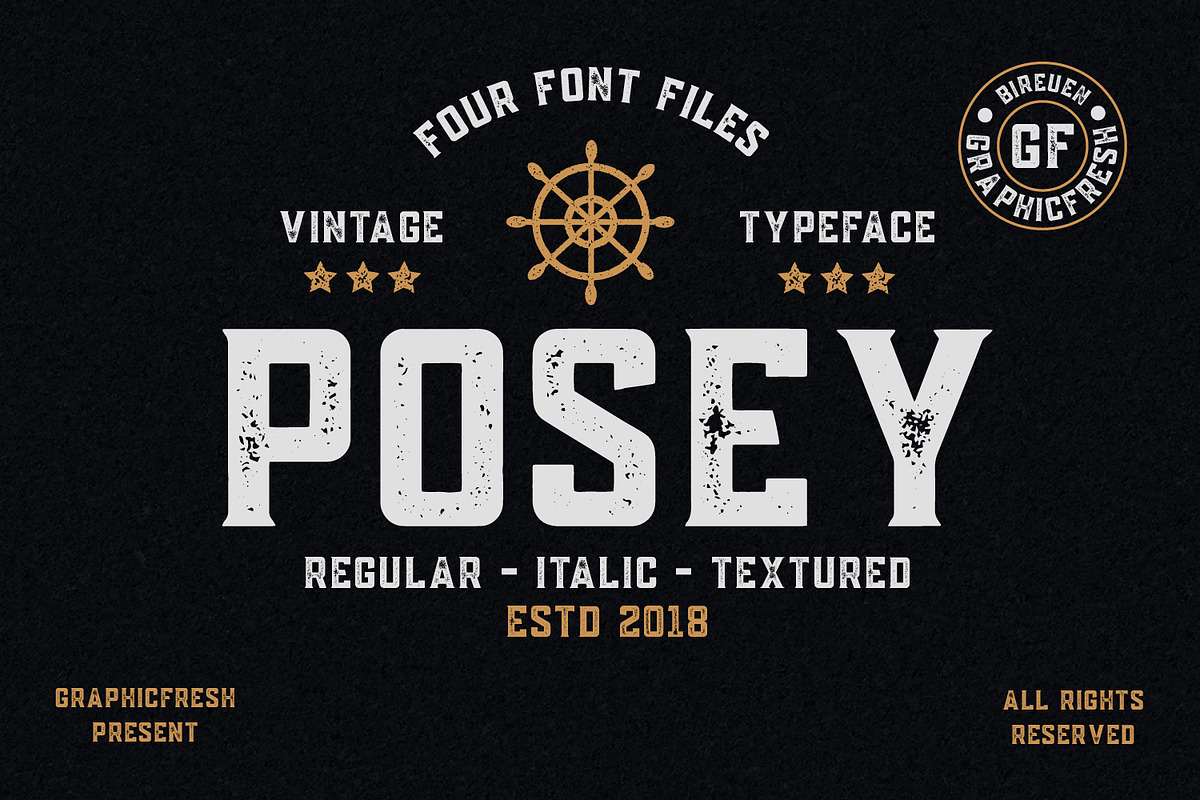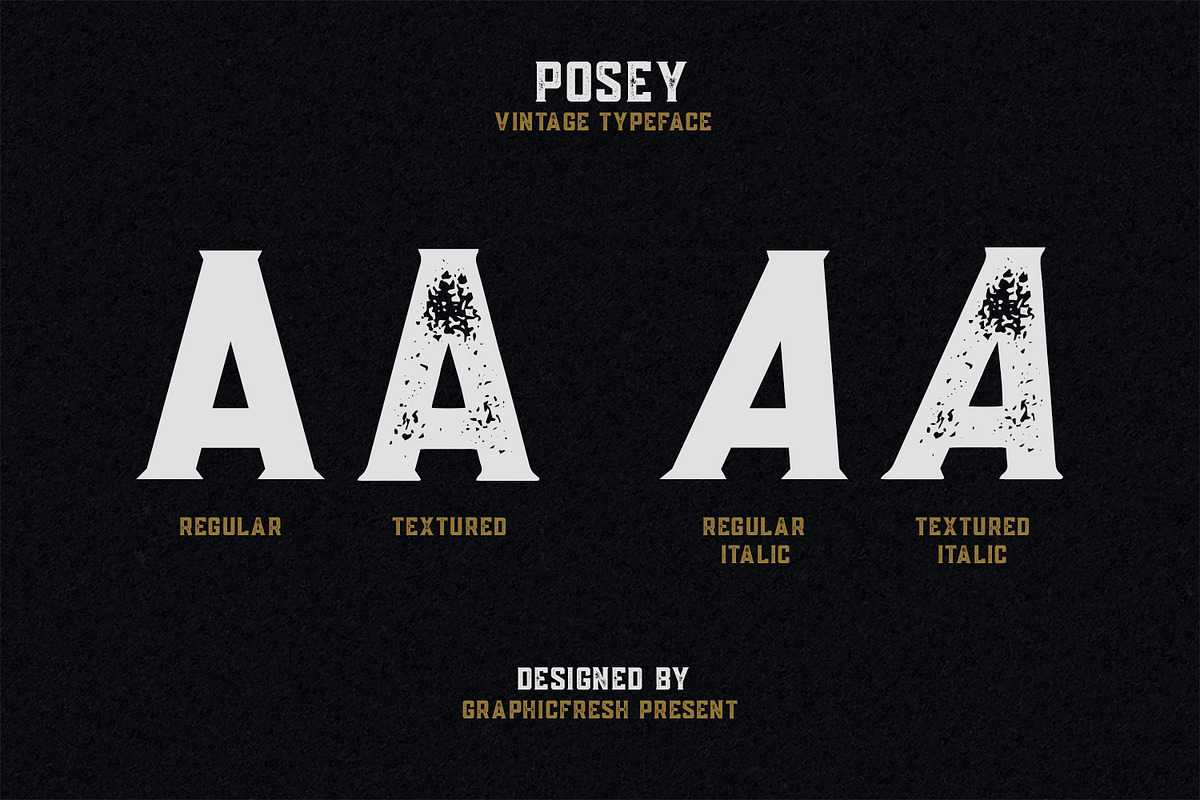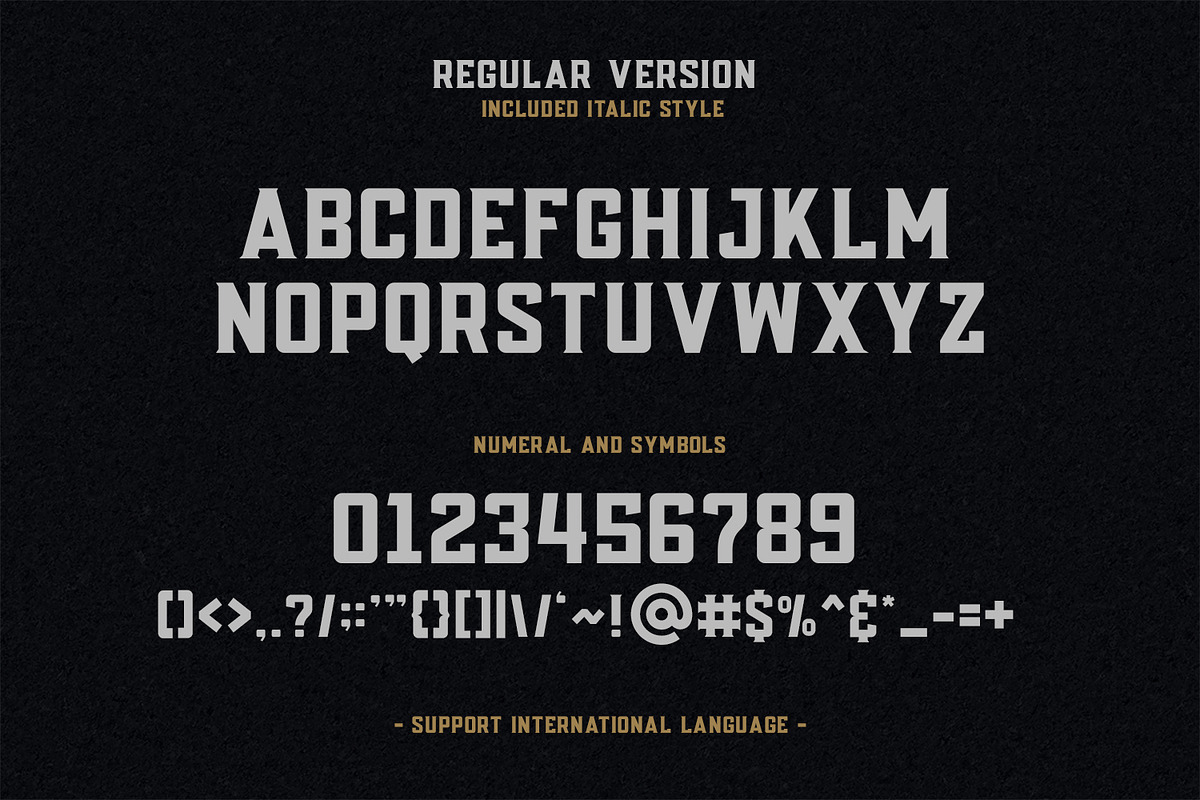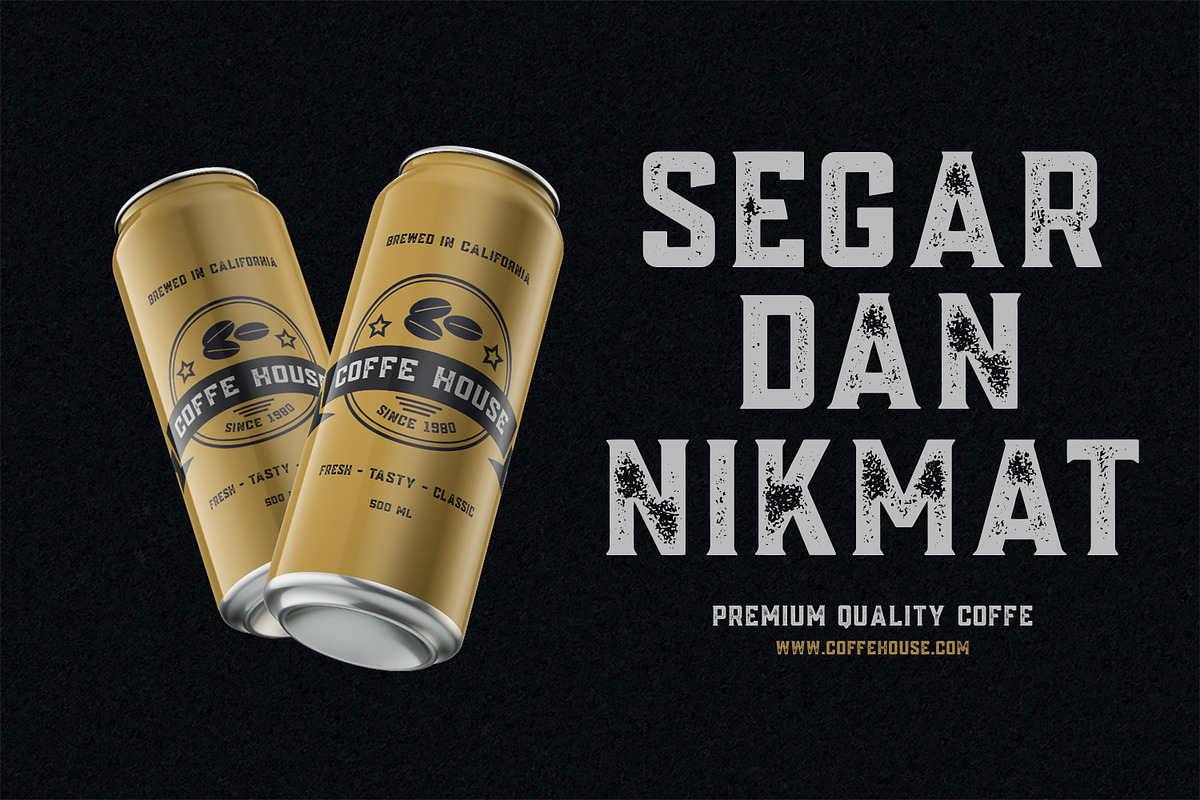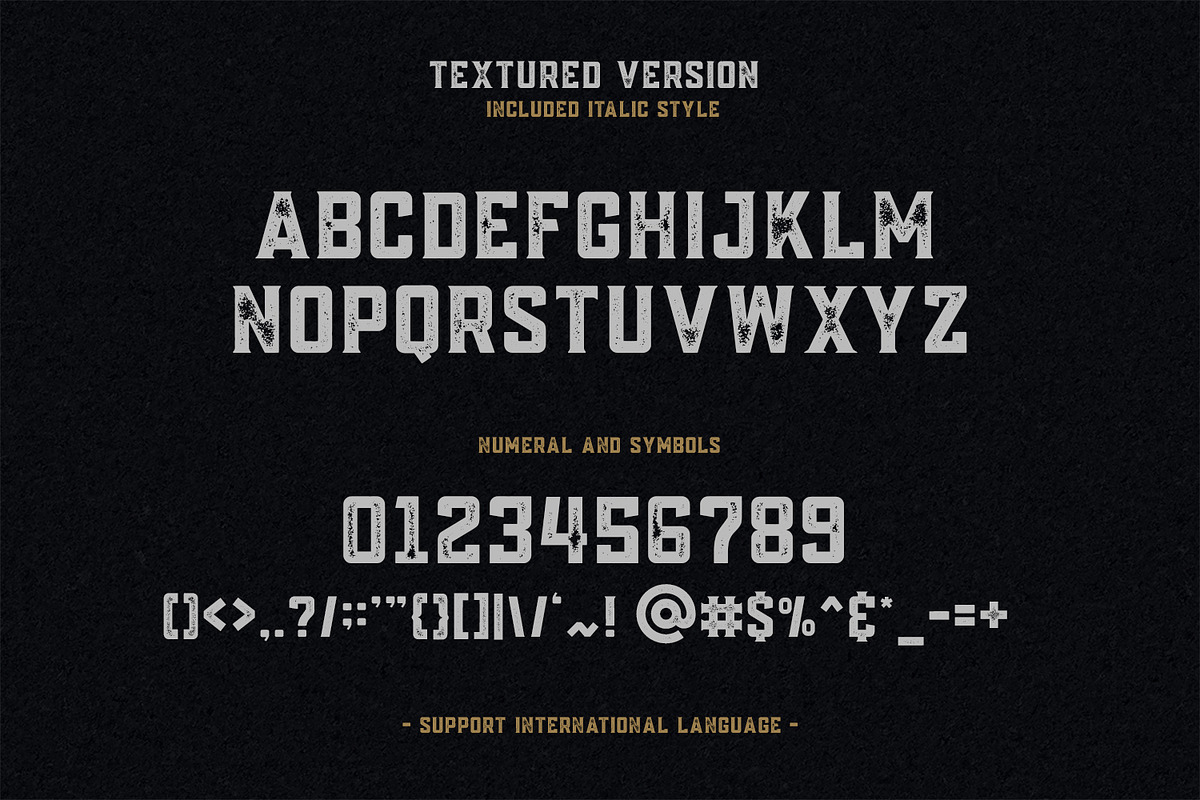
Posey - Vintage Type | 4 Font Files
Posey is a vintage display family including Regular and Textured versions as well as Italic versions of each. it's perfect for logos, name card, magazine layouts, invitations, headers, or even large-scale artwork. Posey includes 4 OTF & TTF files within the Zip folder.
Punctuation and Number
Multilingual Language